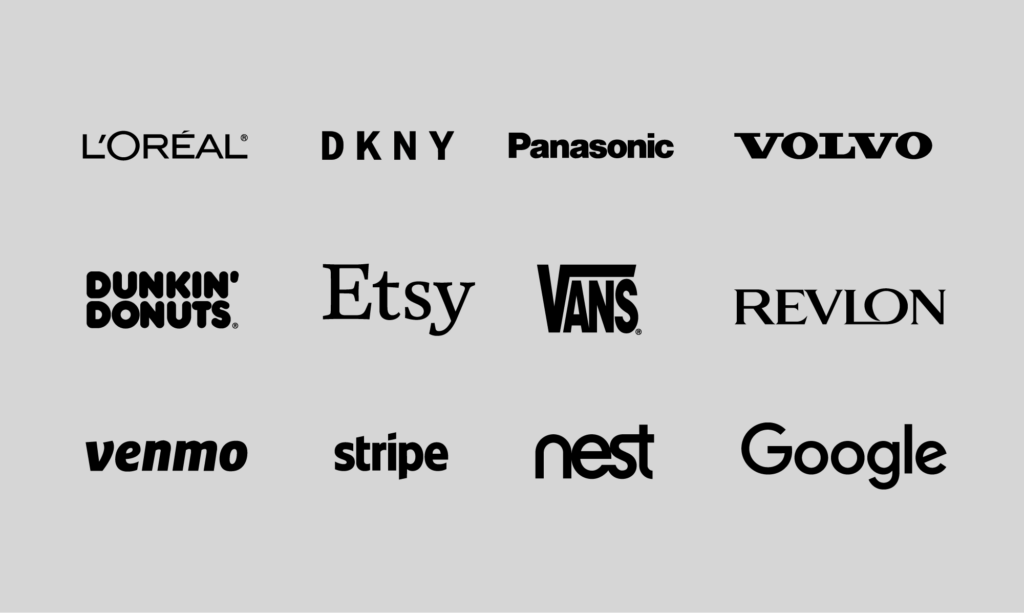
In the competitive marketplace of 2026, a brand’s visual identity is its most powerful silent ambassador. While a logo consists of shapes and colors, it is the typography—the choice of font—that often carries the heaviest emotional weight. Fonts are not merely letters; they are the “voice” of the brand. If you’re looking for inspiration, exploring creative font ideas for logos and visual identity can help you make a strategic decision that bridges the gap between a company’s values and its audience’s perceptions.
The psychology of typography is profound. Studies in visual communication have shown that consumers decide whether they trust a brand within the first 90 seconds of interaction, and 60% of that judgment is based on visual cues. In this deep dive, we explore how to move beyond standard system fonts to embrace creative typography that defines modern branding. From custom-lettered scripts to the technical marvels of variable fonts, we will analyze the trends and techniques that make a brand unforgettable.
1. The Rise of Custom Lettering: Originality Over Uniformity
In an era of digital saturation, “off-the-shelf” fonts can sometimes feel soulless. Custom lettering involves creating a typeface or a set of characters from scratch, specifically for a single brand. This ensures that the logo is 100% unique and impossible to replicate with a standard keyboard.
Custom lettering allows for “personality infusion.” For example, a bakery might use a script font where the “tails” of the letters mimic the swirl of frosting. Brands like Coca-Cola and Disney have thrived for decades on custom scripts that are instantly recognizable regardless of language. By investing in custom typography, a brand communicates that it is artisanal, high-quality, and deeply committed to its specific niche. In 2025, surveys among design agencies showed a 35% increase in clients requesting bespoke letterforms over traditional licensed fonts.
- Total Ownership: You own the intellectual property of the letterforms, preventing competitors from using the same “look.”
- Perfect Fit: Every curve and serif can be adjusted to fit perfectly within the logo’s geometric shape.
- Timelessness: Custom designs tend to age better than “trendy” fonts found on popular design marketplaces.
2. Variable Fonts: The Future of Responsive Branding
One of the most significant technical breakthroughs in branding is the “Variable Font” (OpenType Font Variations). Traditionally, if a designer wanted a thin version and a bold version of a font, they needed two separate files. A variable font acts as a single file that can behave like an infinite number of fonts along a defined axis (weight, width, slant, or even optical size).
For modern visual identity, variable fonts are a game-changer for digital responsiveness. A brand logo can subtly change its font weight depending on whether it’s viewed on a giant 4K billboard or a tiny smartwatch screen. This ensures that readability is never compromised. Furthermore, variable fonts allow for “micro-branding”—the ability to use different weights of the same typeface to create a rich visual hierarchy without cluttering the design with too many different font families.
3. High-Contrast Serifs: Luxury and Sophistication
Minimalism dominated the last decade, leading to the “blanding” of logos where every tech company looked like a variation of Helvetica. In 2026, we are seeing a dramatic return to elegance through high-contrast serifs. These fonts feature a stark difference between the thick and thin parts of the letters.
High-contrast serifs evoke a sense of heritage, fashion, and editorial prestige. Think of the Vogue or Harper’s Bazaar aesthetic. When used in a logo, these fonts tell the consumer that the brand is established, expensive, and detail-oriented. The creative twist in 2026 involves “ligatures”—joining two letters together to create a unique symbol, such as an ‘E’ and ‘T’ merging to form a decorative flourish. This adds an artistic, boutique feel to even the simplest wordmark.
- The “Editorial” Look: Perfect for lifestyle, beauty, and high-end hospitality brands.
- Ligature Magic: Use joined letters to create hidden meanings or visual puzzles within the logo.
- Negative Space: High-contrast fonts allow for beautiful play with the space between and inside letters.
4. Brutalist and Neo-Grotesque: The Bold Modernist Approach
On the opposite end of the spectrum from elegant serifs lies the Brutalist movement. Brutalist typography is characterized by heavy weights, unpolished edges, and a “raw” industrial feel. It rejects traditional beauty in favor of impact and honesty.
This style is highly effective for “disruptor” brands—companies in fintech, urban streetwear, or modern architecture that want to signal they are breaking the rules. Neo-Grotesque fonts like Inter or modern versions of Akzidenz-Grotesk provide a clean, objective foundation, but designers are now “breaking” these fonts by stretching them, overlapping them, or adding glitch effects. This creates a visual identity that feels digital-first and unapologetically loud.
- Uniqueness: Moving toward custom lettering to avoid the “generic” look.
- Technology: Using variable fonts to ensure a perfect look on every screen size.
- Emotion: Choosing between the elegance of high-contrast serifs or the raw energy of Brutalism to match the brand’s core values.
- Engagement: Using geometric abstraction and liquid type to capture attention in a crowded visual landscape.
By selecting a font that aligns with the brand’s personality, designers do more than just write a name—they build an identity that resonates on a subconscious level.